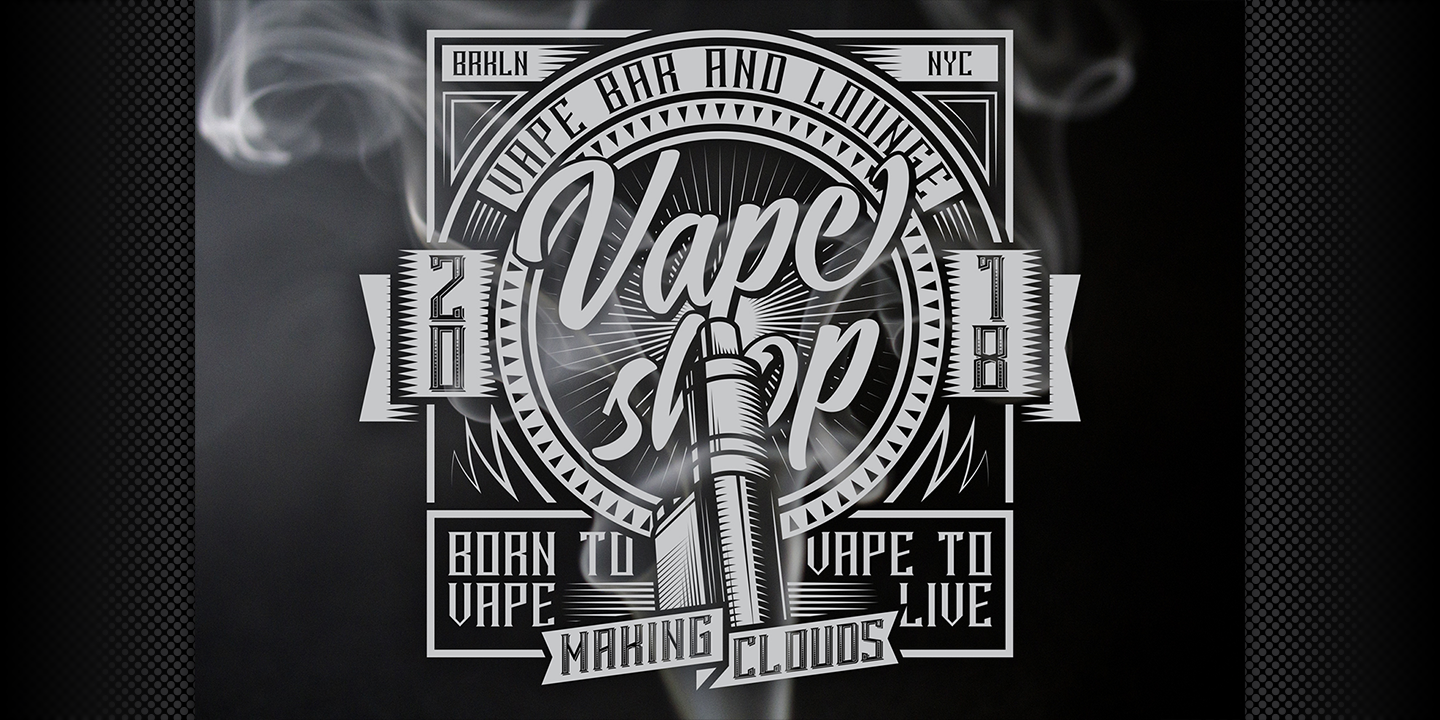
Smokers Font Free Download is a bold and edgy display typeface that brings a gritty, urban vibe to your creative projects. Perfect for music posters, streetwear branding, album covers, and any design needing a raw, rebellious touch, Smokers stands out with its strong personality.
Its unique letterforms, inspired by graffiti and street art, convey energy and attitude. Whether you're crafting logos, headlines, or promotional materials, Smokers Font Free Download delivers a striking and memorable impact.